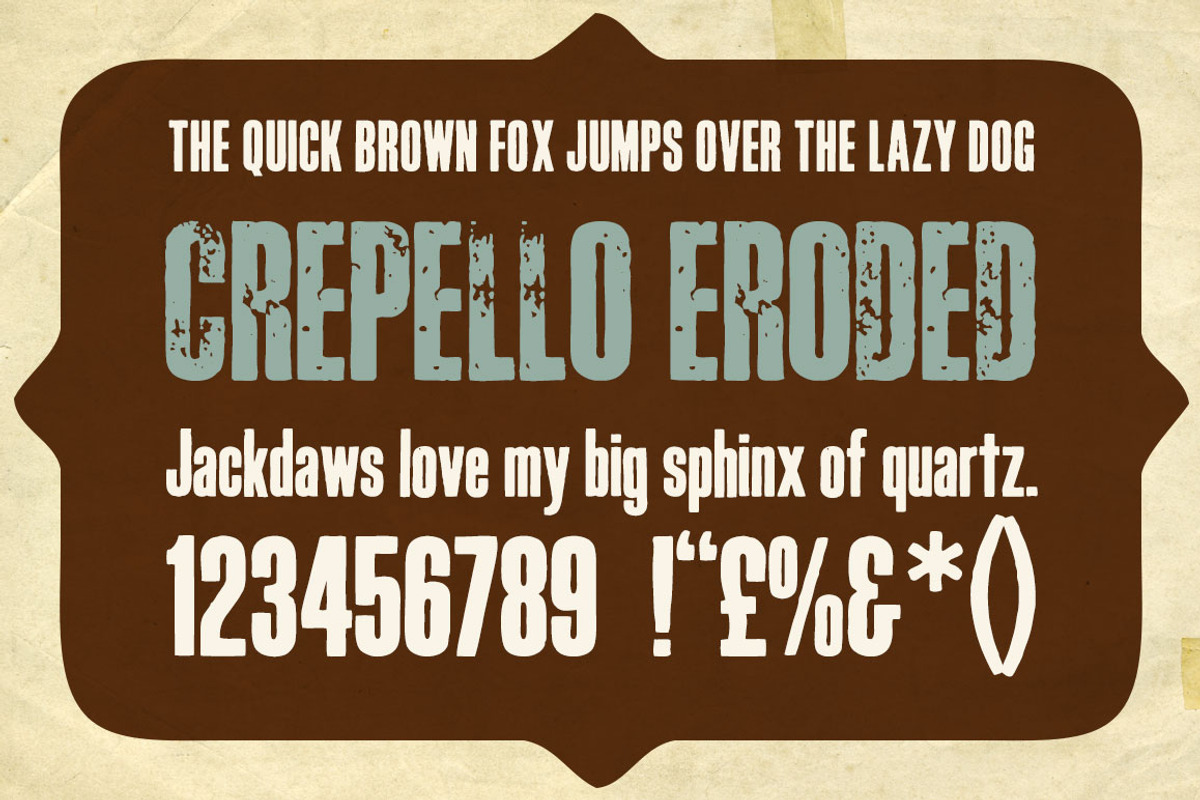
Crepello Woodblock Font
Crepello Woodblock Font by Kitch22 Foundry is a font selected for branding, posters, packaging, typography.
- Crepello Regular
- Crepello Eroded
Why Crepello Woodblock Font is worth a look
Crepello Woodblock Font by Kitch22 Foundry fits naturally into Branding, posters, packaging, typography.